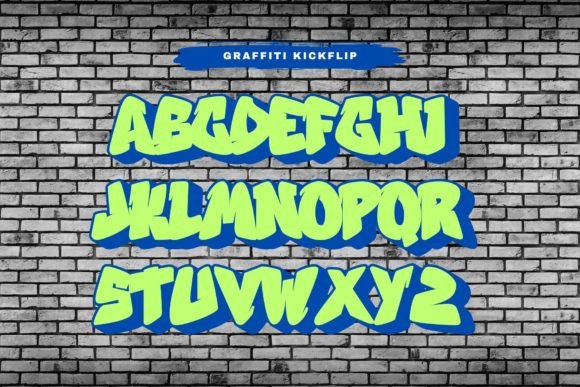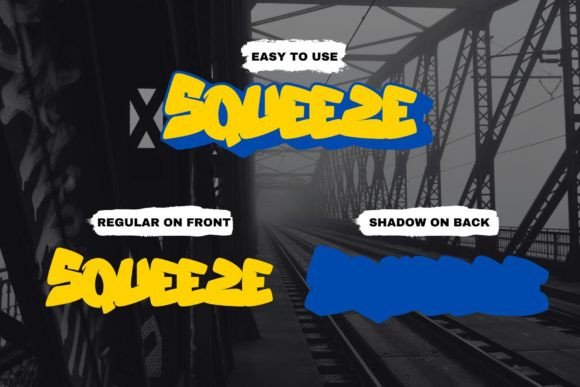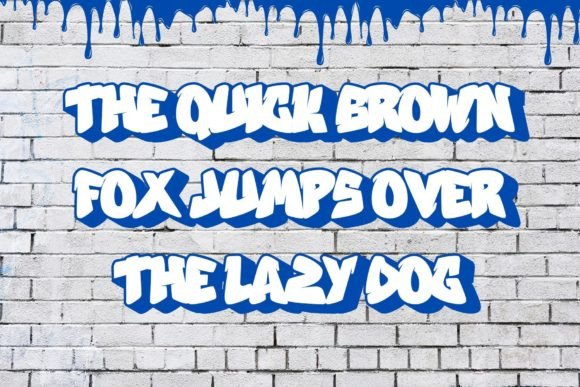
The Birth of a Street Art Revolution
As I sat in my studio, surrounded by blank canvases and scattered sketches, I felt the familiar itch for something new. I was searching for the perfect font to bring my latest design project to life – something that would capture the raw energy and rebellious spirit of the city streets. And then, it hit me: the Graffiti Kickflip Font. Its bold, uppercase letters with jagged edges and unique embellishments were like a ray of sunshine in a world of generic typography.
The Graffiti Kickflip Font is a game-changer for designers who want to add a touch of urban flair to their work. Whether you’re creating eye-catching titles for music posters or designing bold headlines for urban-inspired projects, this font is the perfect tool to make a statement. Its bold and unapologetic personality is infectious, and its unique style is sure to leave a lasting impression.
With the Graffiti Kickflip Font, you’ll be able to breathe life into your designs and connect with your audience on a deeper level. Its edgy, daring style is the perfect way to express your creativity and showcase your artistic vision. So why settle for ordinary when you can have extraordinary? Let the Graffiti Kickflip Font be your ticket to a world of bold, unapologetic design.
Graffiti Kickflip Font Key Features
- Font Style: Graffiti Kickflip Font is a unique, hand-drawn graffiti style font, ideal for adding a touch of edginess to your designs.
- Size: This font is available in a single size, making it easy to use across various design projects.
- Resolution: Designed for high-resolution printing and digital use, ensuring crisp and clear text output.
- Unique Characteristics: Graffiti Kickflip Font features bold, expressive lines and dynamic letterforms, perfect for creating eye-catching headlines and titles.
- Legibility: Despite its bold and playful nature, this font remains highly legible, making it suitable for body text and longer passages.
Graffiti Kickflip Font Review
Overall, I’m impressed with the unique character of the Graffiti Kickflip Font. The bold lines and dynamic feel ✨ give it a cool, edgy vibe that’s perfect for action sports or streetwear brands. The font’s versatility makes it suitable for both digital and print applications.
- The font’s bold lines and curves ✨ create a sense of movement and energy.
- The unique character set and alternates ✨ add a touch of personality to the font.
- The font’s legibility ✨ is decent, even at smaller sizes.
- ⚠️ The font’s boldness can make it difficult to read in certain contexts, such as body text.
- ⚠️ The font’s character set is limited, which may not be suitable for complex, multi-language designs.
- ⚠️ The font’s dynamic feel ✨ can be overwhelming in certain applications, such as headlines.
Overall, the Graffiti Kickflip Font is a great choice for brands that want to add a bit of attitude and edge to their visual identity. However, it’s essential to use it thoughtfully and consider the context in which it will be used.
To get the most out of the Graffiti Kickflip Font, try combining it with bold or italic text to create a sense of depth and emphasis. You can also experiment with different font sizes and colors to create a unique and eye-catching design.
The Graffiti Kickflip Font is perfect for creating bold and eye-catching titles, headings, and logos. It’s also great for use in street art, graffiti, and urban design projects. Additionally, it can be used in fashion, music, and sports branding to add a touch of edginess and coolness.